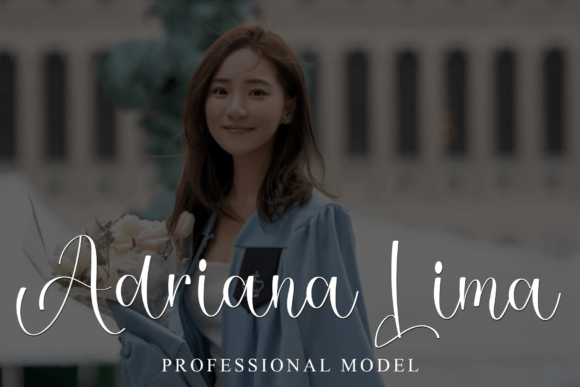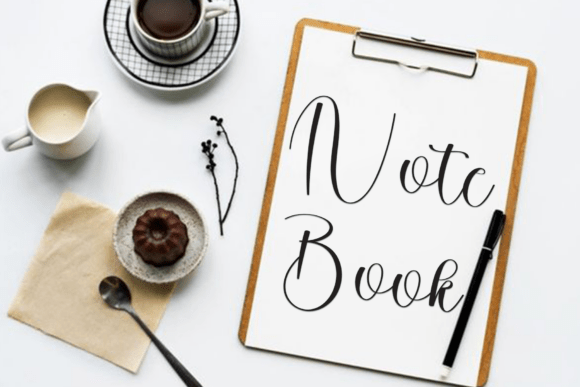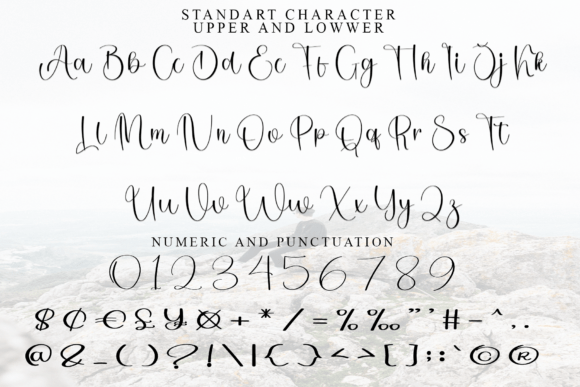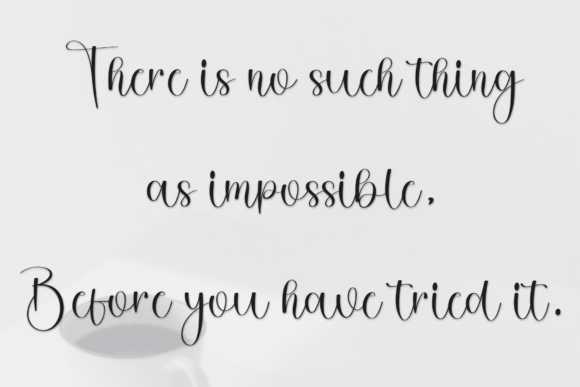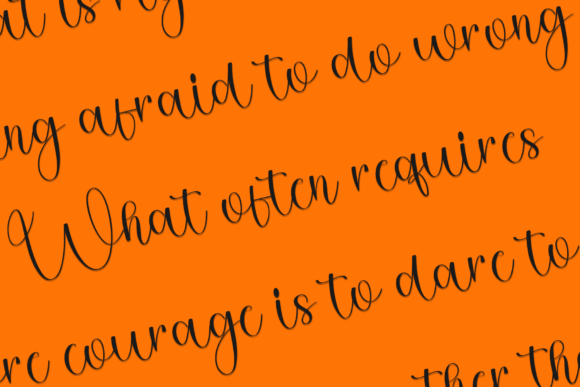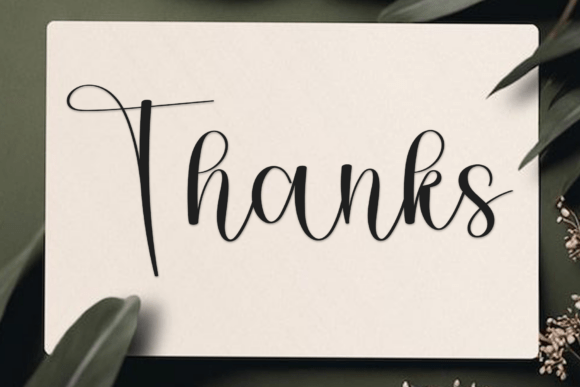
Introduction to Juliette Autography Font
Juliette Autography is a beautiful and eye-catching font designed with a soft, unique touch.
Its distinctive strokes give it a special character, making it meaningful and versatile for future use With various characters, itโs perfect for design projects, crafts, and other creative works.
Juliette Autography Font offers exceptional quality and versatility, making it a valuable addition to your design toolkit. Whether you’re creating for personal projects or commercial use, Juliette Autography Font delivers professional results.